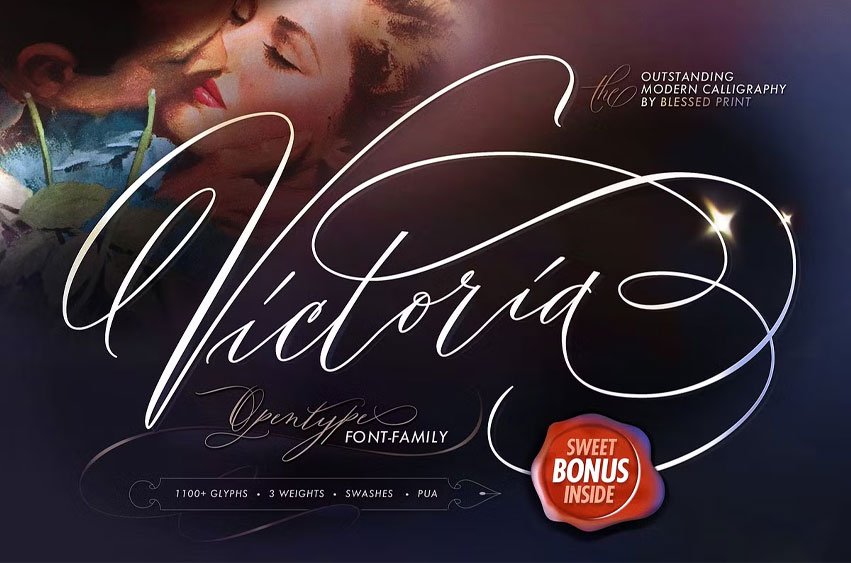
Outstanding Victoria Font reflects the already established image of modern calligraphy, this font is quite unique because of its elegance and variety of alternates. Each uppercase letter is available in several variations. The lowercase letters have up to 20 styles with beautiful sweeps
Very simple, enter any number starting from 0 (a0, a1, a2…) after any letter and evaluate the result. It’s so convenient that you quickly get used to it. This function works in many programs like Adobe, MS Word and even on CreativeMarket if you tap at the bottom of the font preview window.
** FEATURES
- Contextual alternates
- Standard ligatures
- Stylistic alternates
- PUA coded
- 3 weight
- Swashes / squiggles
- 1100+ glyphs
- 9 Ampersands (I know how important it is to have wonderful ampersands)
- Long ink words
- Pre-made slashes
SWASHES
Short and long swashes are available when you type { } [ ]